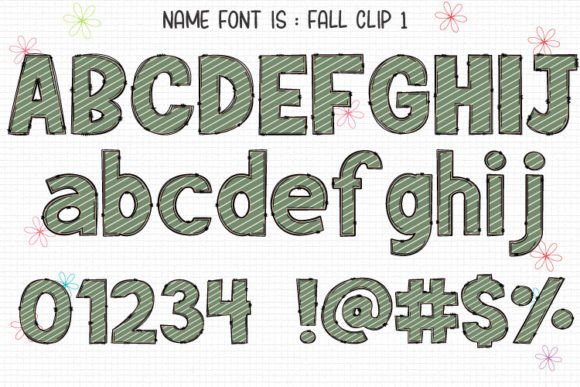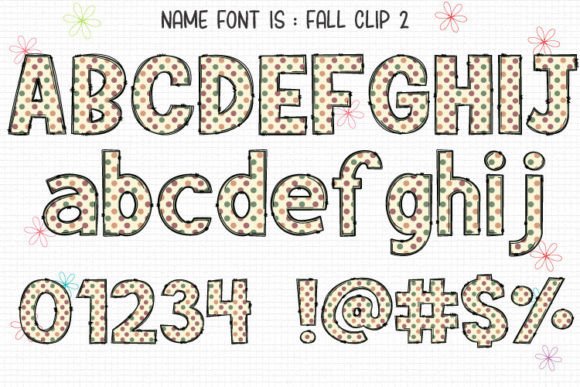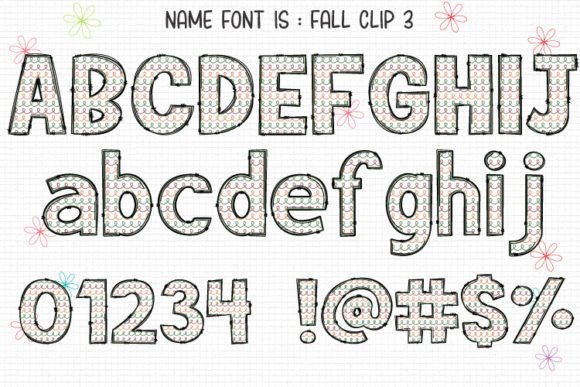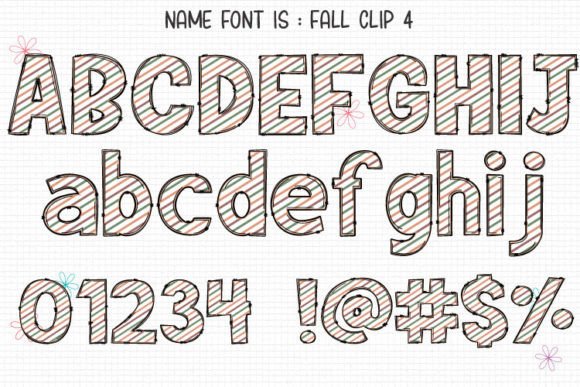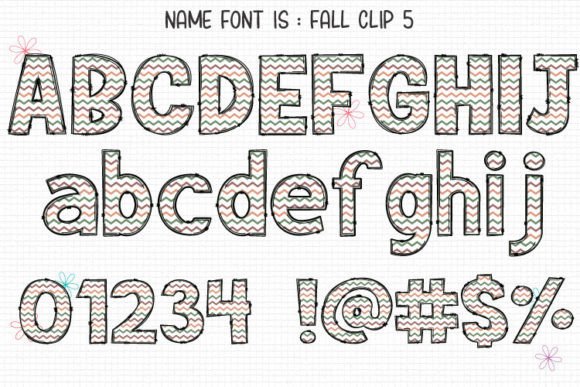
Fall Clip Font: The Perfect Addition to Your Autumn Projects
As the leaves start to change and the air grows crisper, it’s the perfect time to get creative with your designs. Introducing the Fall Clip Font, a super festive font that’s sure to add a touch of autumnal charm to your projects. Whether you’re a designer, crafter, or DIY enthusiast, this font is perfect for creating cute monogrammed mugs, seasonal banners, sublimation projects, and so much more!
What Makes Fall Clip Font So Special?
Fall Clip Font is a unique and versatile font that’s specifically designed for autumn-themed projects. Its playful and whimsical style is sure to capture the essence of the season, making it perfect for a wide range of applications. From invitations and party decorations to social media graphics and product designs, this font is sure to add a pop of personality to your creations.
Endless Project Possibilities
With the Fall Clip Font, the possibilities are endless! Here are some project ideas to get you started:
- Monogrammed mugs: Add a personal touch to your coffee mugs with custom monograms and autumn-themed designs.
- Seasonal banners: Create eye-catching banners for your blog, social media, or website with the Fall Clip Font.
- Sublimation projects: Use the color version of the font to create stunning sublimation projects, such as custom t-shirts, tote bags, and more.
- Party decorations: Design custom party decorations, like garlands, signs, and invitations, with the Fall Clip Font.
Tips and Tricks for Working with Fall Clip Font
To get the most out of the Fall Clip Font, here are some tips and tricks to keep in mind:
- Experiment with different font sizes and colors to add visual interest to your designs.
- Use the font in combination with other design elements, like shapes and graphics, to create unique and eye-catching compositions.
- Don’t be afraid to get creative and try out new and innovative project ideas!
The Fall Clip Font is a fantastic addition to any designer’s or crafter’s toolkit. With its playful and festive style, it’s perfect for creating a wide range of autumn-themed projects. Whether you’re a seasoned pro or just starting out, this font is sure to inspire your creativity and help you produce stunning designs. So why wait? Get creative with the Fall Clip Font today and add a touch of autumnal charm to your projects!